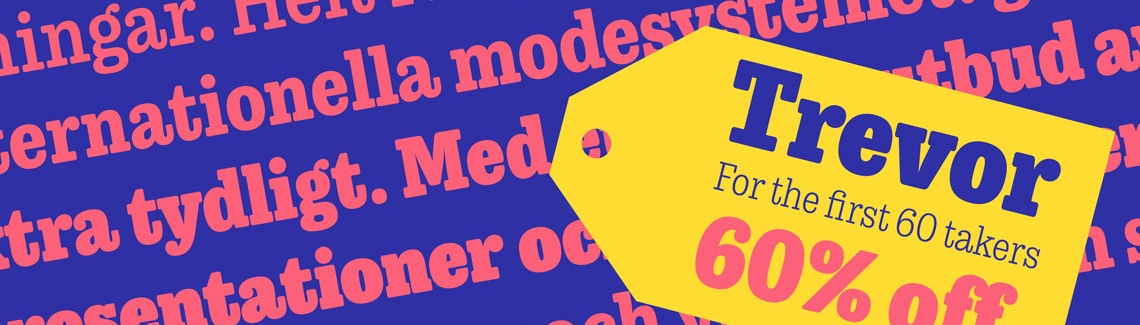
60% off Trevor
To celebrate that Teo Tuominen’s Trevor was a finalist in a the European Design Awards 2018 we’re offering a one-time discount of 60% off the Trevor family, but only for the first 60 takers.